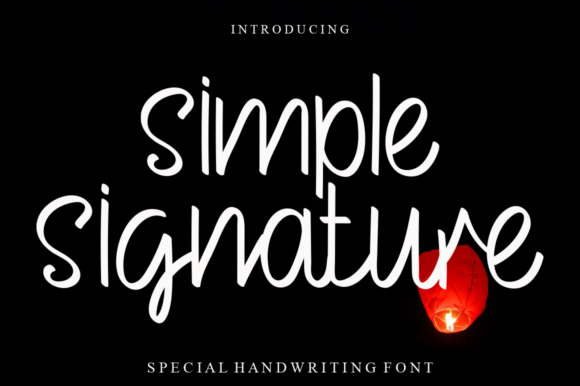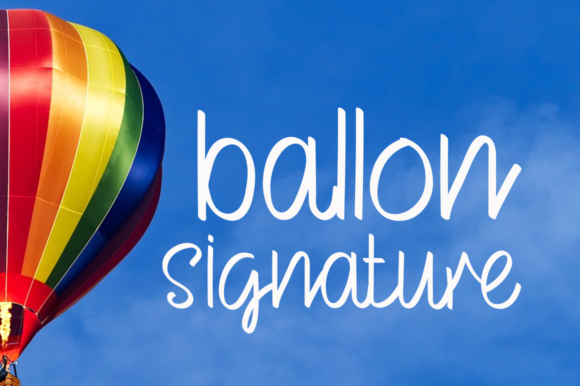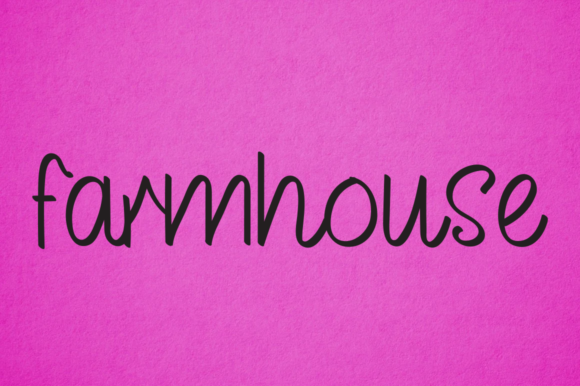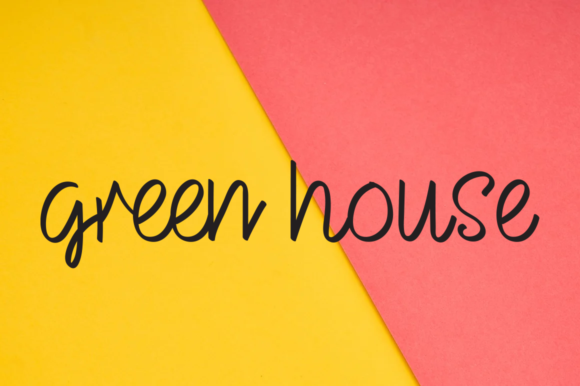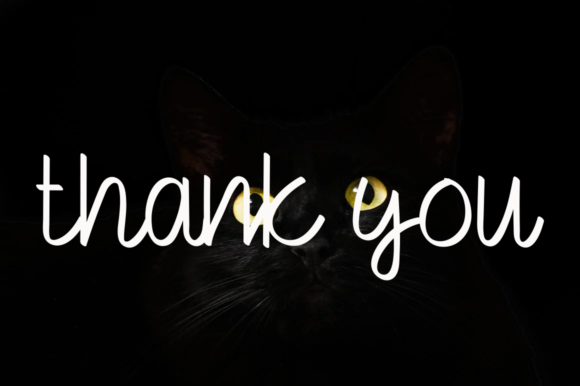
Simple Signature Font
About Simple Signature Font
Simple signature is a friendly handwritten font. Beautifully clear and cursive, this font is here to make your creations seem out of this world! Fall in love with this font and use it in your most creative projects!